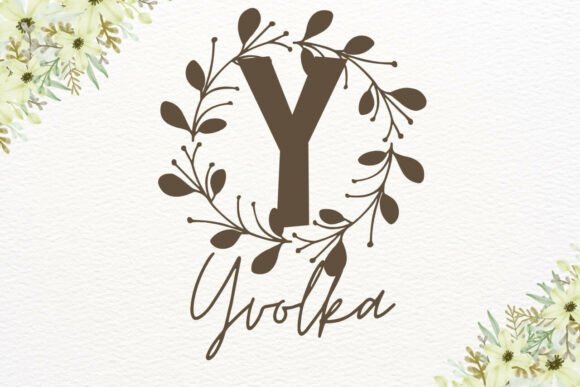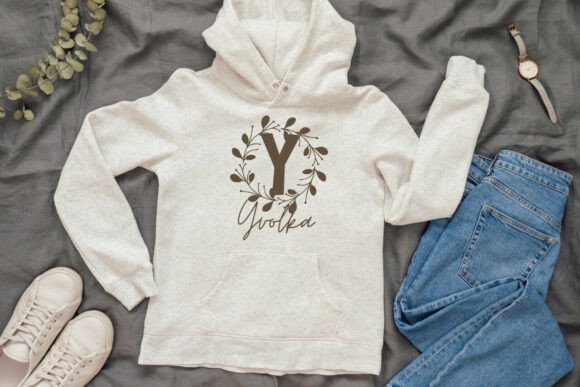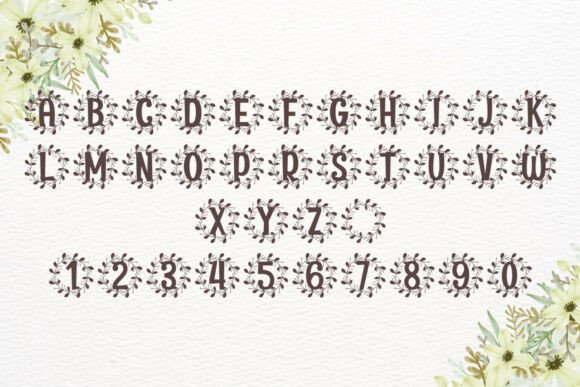
Introduction to Mireth Monogram Font
Meet Mireth, the Monogram Font Mireth Monogram Font turns simple initials into polished emblems with a calm, premium feel.
Strokes are smooth and balanced, while open counters keep tiny tags readable Use it for wedding suites, boutique logos, keepsake gifts, and elegant packaging.